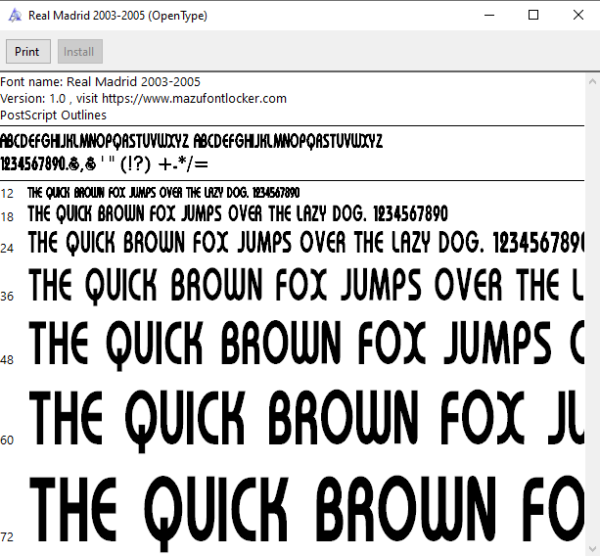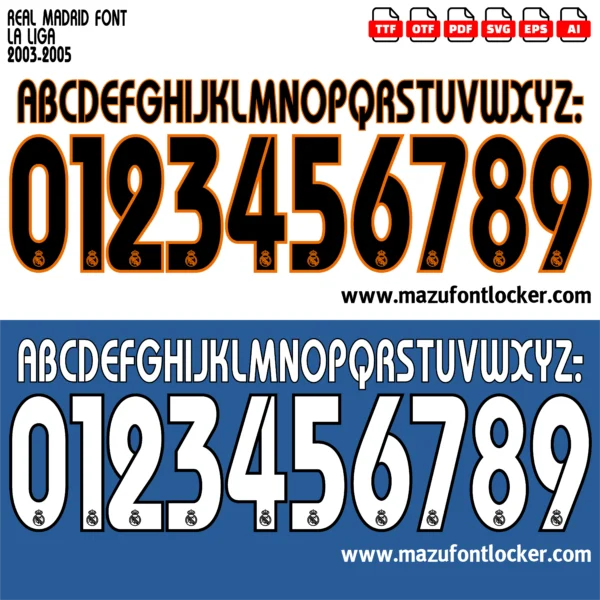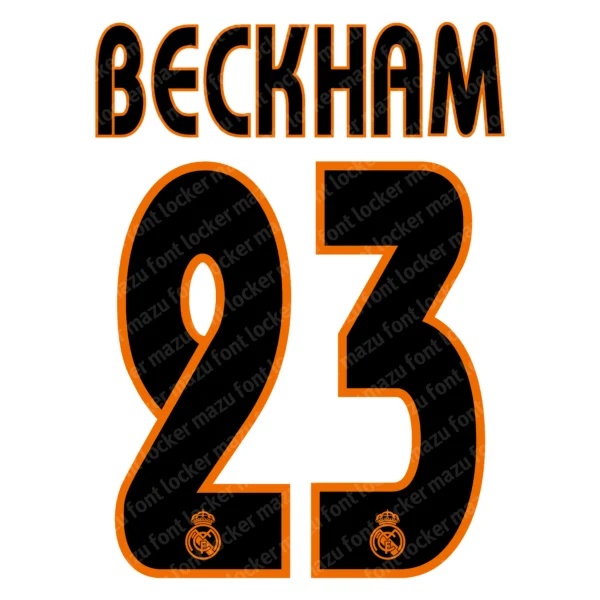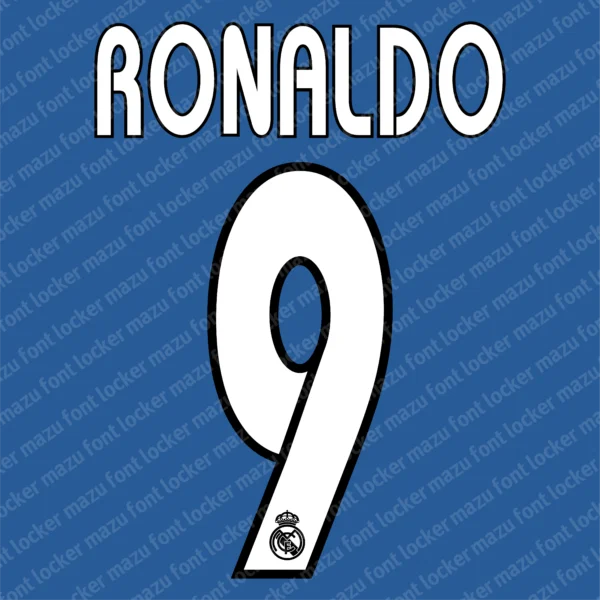
Real Madrid 2003-2005 Font Vector – Legendary Galácticos Masterpiece
This font captures the unstoppable, precision-forged lettering inspired by Real Madrid’s iconic pure-white identity, proud Spanish heritage, legendary Los Merengues tradition, and fearless world-conquering football spirit — delivering premium authenticity and explosive match-day energy for professional jersey mockups, football graphics, sports branding, fan designs, and high-end creative projects.
Real Madrid 2003-2005 Font Vector – Stunning White & Gold Typeface
The Real Madrid 2003-2005 Font Vector is a premium typeface that accurately recreates the distinctive match lettering associated with Real Madrid during the 2003-2005 football seasons. This high-quality vector font kit captures the bold, clean, and instantly recognizable typography that perfectly complements the club’s iconic white and gold identity.
Designed for professional designers, football enthusiasts, jersey collectors, and passionate Real Madrid supporters, the Real Madrid 2003-2005 Font Vector delivers exceptional authenticity for creating realistic jersey mockups, football merchandise, social media graphics, match posters, squad designs, and custom fan artwork. Every character has been carefully recreated to reflect the powerful and precise visual style of one of the world’s most successful and prestigious football clubs.
Why Choose Real Madrid 2003-2005 Font Vector
This font stands out thanks to its precise vector construction and authentic club-inspired styling. Every letter and numeral has been meticulously recreated to match the distinctive football lettering aesthetic associated with Real Madrid during the 2003-2005 seasons and its domestic and European campaigns.
Whether you’re producing professional football kit templates, custom jersey concepts, or eye-catching football content, the Real Madrid 2003-2005 Font Vector delivers a genuine match-ready appearance inspired by the identity of Los Blancos.
The lettering featured in the Real Madrid 2003-2005 Font Vector combines clean geometric lines with bold modern proportions. The result is a premium and highly readable typeface that reflects Real Madrid’s proud football heritage, iconic white and gold colors, Madrid identity, and passionate global fanbase.
• Complete uppercase A–Z alphabet and numbers 0–9 in authentic Real Madrid 2003-2005 inspired style
• Special Real Madrid badge glyph – Press the “:” (Colon) key to insert the club crest
The Real Madrid 2003-2005 Font Vector is an independently designed typeface package inspired by the official shirt lettering and visual identity associated with Real Madrid during the 2003-2005 football seasons. It has been carefully recreated for football enthusiasts, graphic designers, collectors, jersey creators, and fans producing custom football concepts, digital artwork, and fan-made projects. Please note that this is a fan-made design resource and is not an official product of Real Madrid, La Liga, UEFA, or any associated organization.